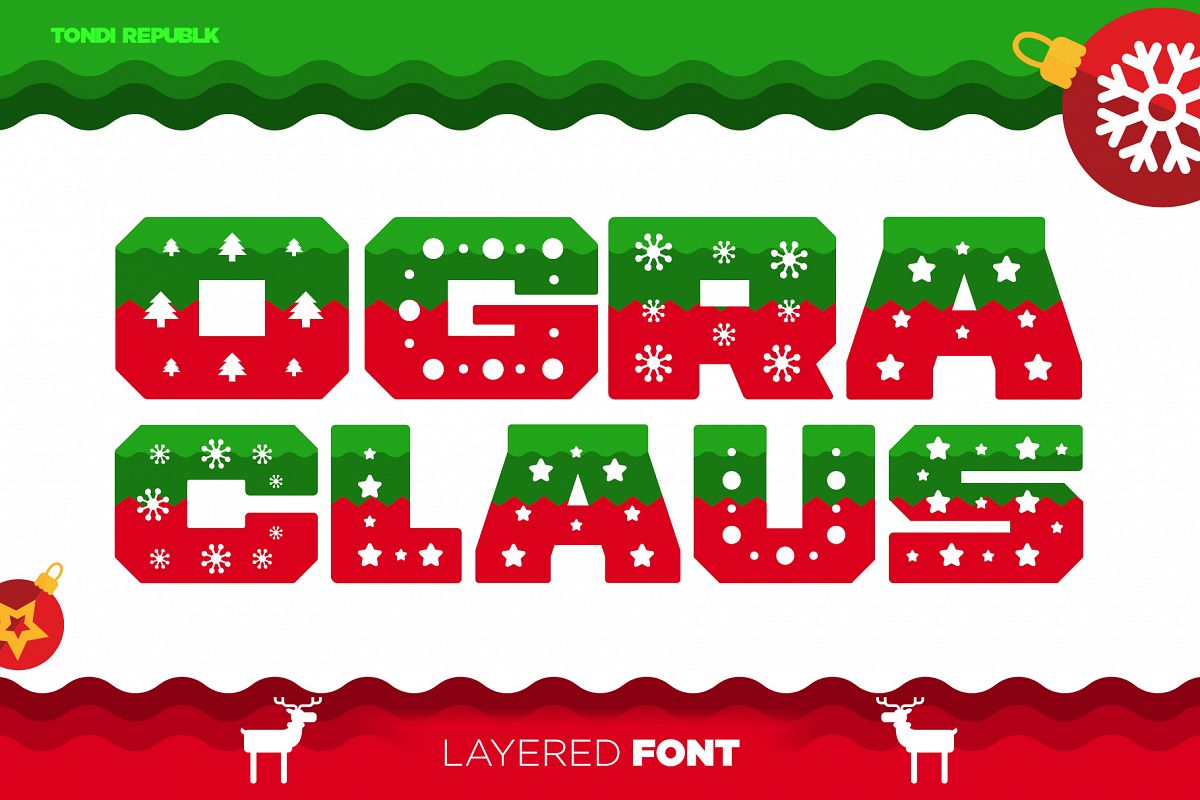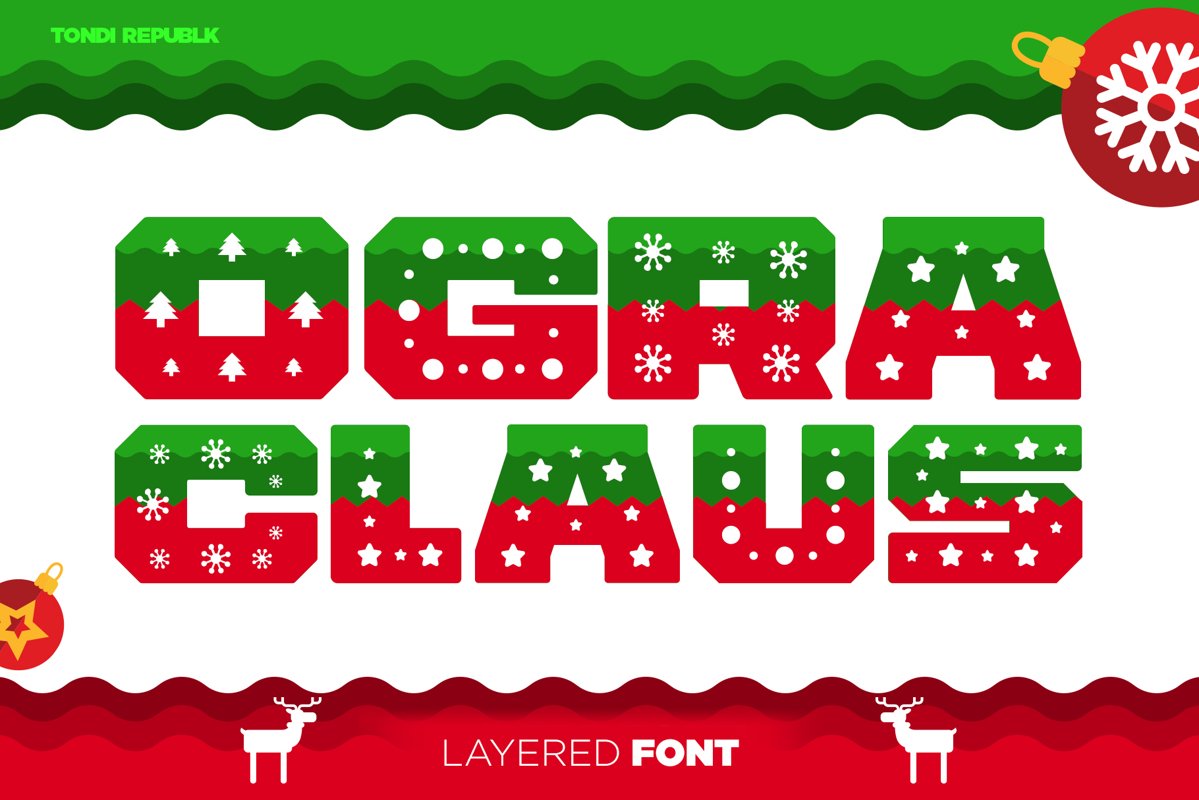
Ogra Clause Layered Christmas Font
OgraClause-Sky
OgraClause-Base
OgraClause-Hills
OgraClause-Ornaments
Ogra Clause is a playful and merry layered typeface made for all things christmas. The typeface can be used in multiple layered variations in order to achieve different aesthetics. Ogra Clause comes with four layers: Base, Hills, Sky & ornaments which come together to create a unique and festive look.